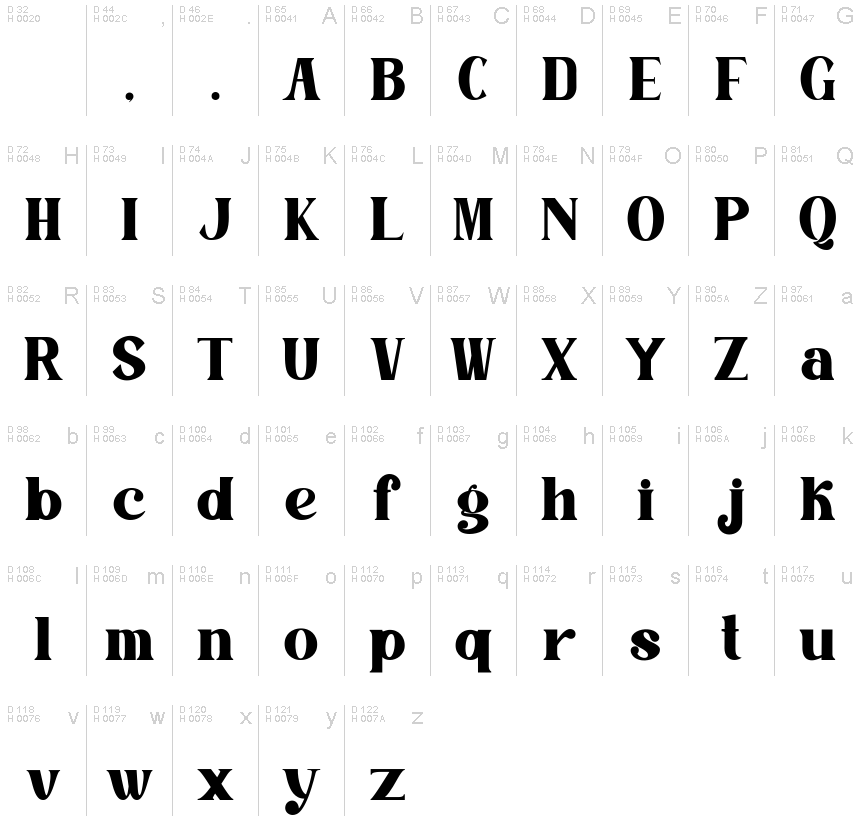
Helios Retro Regular
Helios Retro, a bold and captivating serif font crafted by Achmad Yani of Flawless and co, exudes a timeless allure with its vintage-inspired aesthetic. The striking letterforms, accentuated by their bold strokes and subtle serifs, evoke a sense of historical elegance and command attention. This font's robust and confident appearance lends itself to a range of applications, from eye-catching headlines to impactful branding and packaging designs.
Helios Retro's versatility shines through its versatility, making it a compelling choice for a diverse array of projects. Its bold and distinctive character lends itself seamlessly to headings, titles, and logos, where it can effectively capture the audience's attention and convey a strong, memorable impression. Additionally, the font's classic charm can be harnessed in editorial layouts, book covers, and other print-based applications, infusing a touch of timeless sophistication.